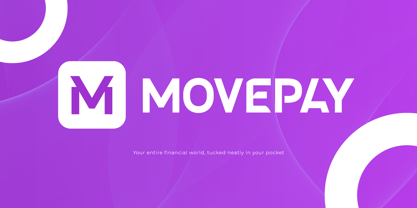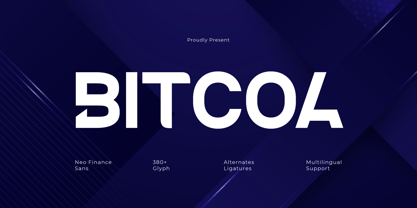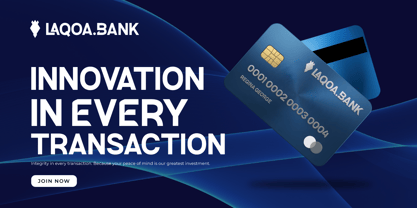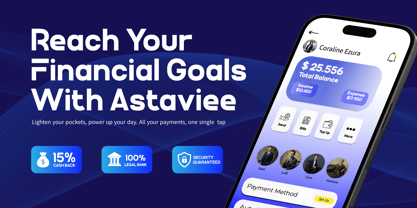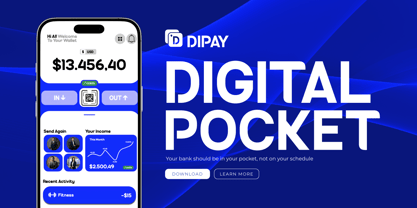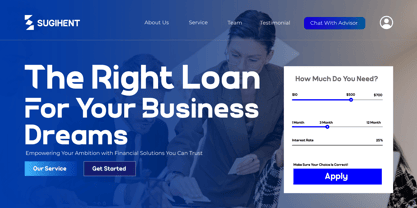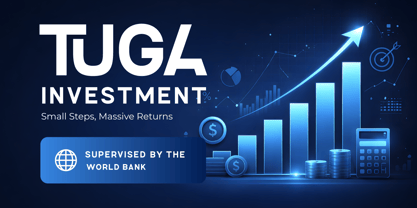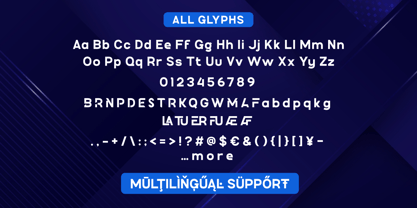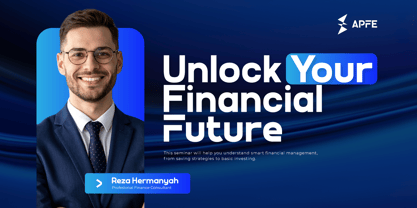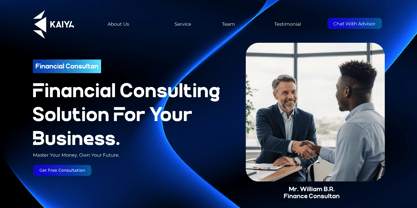
Bitcoa is a Neo Finance Sans typeface designed to represent professionalism within the Fintech and digital banking industries. Featuring clean and precise geometric letterforms, this font delivers a futuristic yet trustworthy impression. Its characteristics are ideal for a Modern Financial Ecosystem that prioritizes a minimalist and technology-oriented visual identity.
The design structure focuses on high readability to support a seamless transaction UI experience on digital platforms. Inspired by modern banking visual standards, Bitcoa ensures every detail of text and numbers remains clear across both the mobile app interface and the financial dashboard. This helps designers create a layout that is functional, clean, and conveys a high sense of credibility to users.
As a future-ready digital typography solution, Bitcoa offers flexibility for corporate branding, crypto platforms, and modern business identity systems. With its solid and balanced letter anatomy, this font enhances premium visual appeal across various promotional media. Bitcoa is a strategic choice for brands aiming to appear strong, innovative, and ready for the evolution of global financial technology.
- All glyphs and Feature
- Multilingual Support: Fully supports 85+ languages, including:
Afrikaans, Albanian, Asu, Basque, Bemba, Bena, Breton, Catalan, Chiga, Cornish, Croatian, Czech, Danish, Dutch, Embu, English, Esperanto, Estonian, Filipino, Finnish, French, Friulian, Galician, Gusii, Hungarian, Indonesian, Irish, Italian, Kabuverdianu, Kalenjin, Kamba, Kikuyu, Kinyarwanda, Latvian, Lithuanian, Lower Sorbian, Luo, Luxembourgish, Luyia, Machame, Makhuwa-Meetto, Makonde, Malagasy, Maltese, Manx, Meru, Morisyen, North Ndebele, Norwegian Bokmål, Norwegian Nynorsk, Nyankole, Oromo, Polish, Portuguese, Quechua, Romanian, Romansh, Rombo, Rundi, Rwa, Samburu, Sango, Sangu, Scottish Gaelic, Sena, Serbian, Shambala, Shona, Slovak, Slovenian, Soga, Somali, Spanish, Swahili, Swedish, Swiss German, Taita, Teso, Turkish, Upper Sorbian, Uzbek (Latin), Volapük, Vunjo, Walser, Zulu.